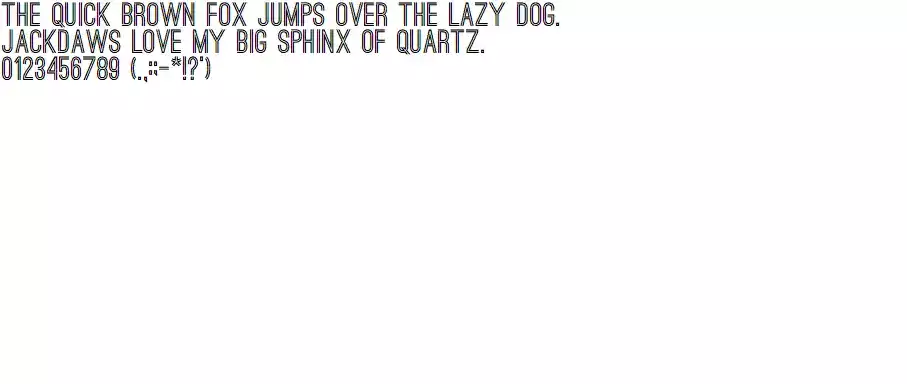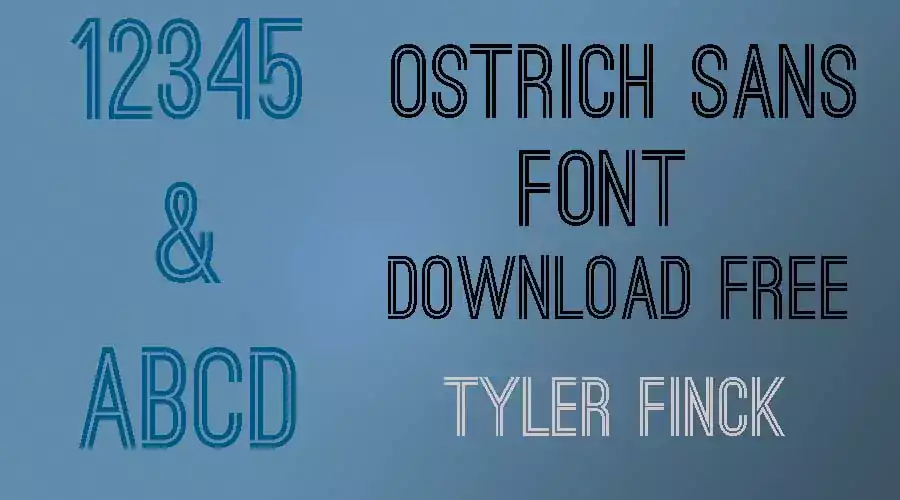
Ostrich Sans Font
Introducing Ostrich Sans Basic! It is a Sans Serif Font that is a fantastic current sans-serif with a totally lengthy neck. Ostrich Sans Inline is the latest to the circle of relatives and has a fundamental worldwide man or woman assist and an italic fashion. With an entire slew of styles & weights: Dashed (thin), Rounded (medium), Ultralight, Normal, Bold (race tune fashion double lines), and Black. Ostrich Sans font’s own circle of relatives was designed and shared through Tyler Finck.
The stunning font has helped languages such as Afrikaans, Albanian, Catalan, Croatian, Czech, Danish, Dutch, English, Estonian, Finnish, French, German, etc. As a sans serif font, it’s going to upload vibes of classiness for your challenge. The font has diverse fashion and weights which makes it greater bendy to apply for your challenge, for this reason, your wishes with no hassle. You can multiply use this font inside a challenge in a diverse fashion if you want to look top in keeping with me. TTF and OTF are the 2 variations to be had for this font.
This is a stunning sans serif font that appears ideal with any kind of creative work. It does have stunning curves if you want to upload beauty for your challenge climate you’re making an emblem or advertisement. You can use this font on the whole in branding tasks for its stunning texture.